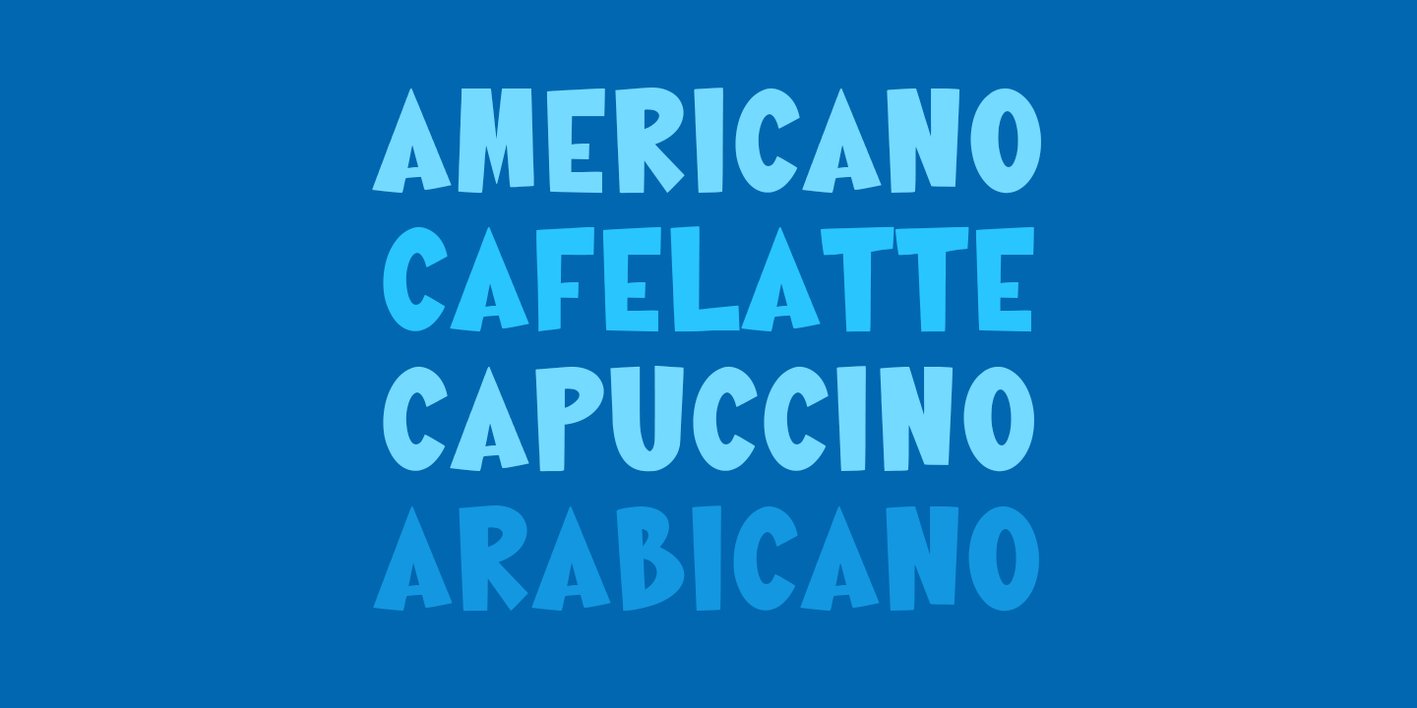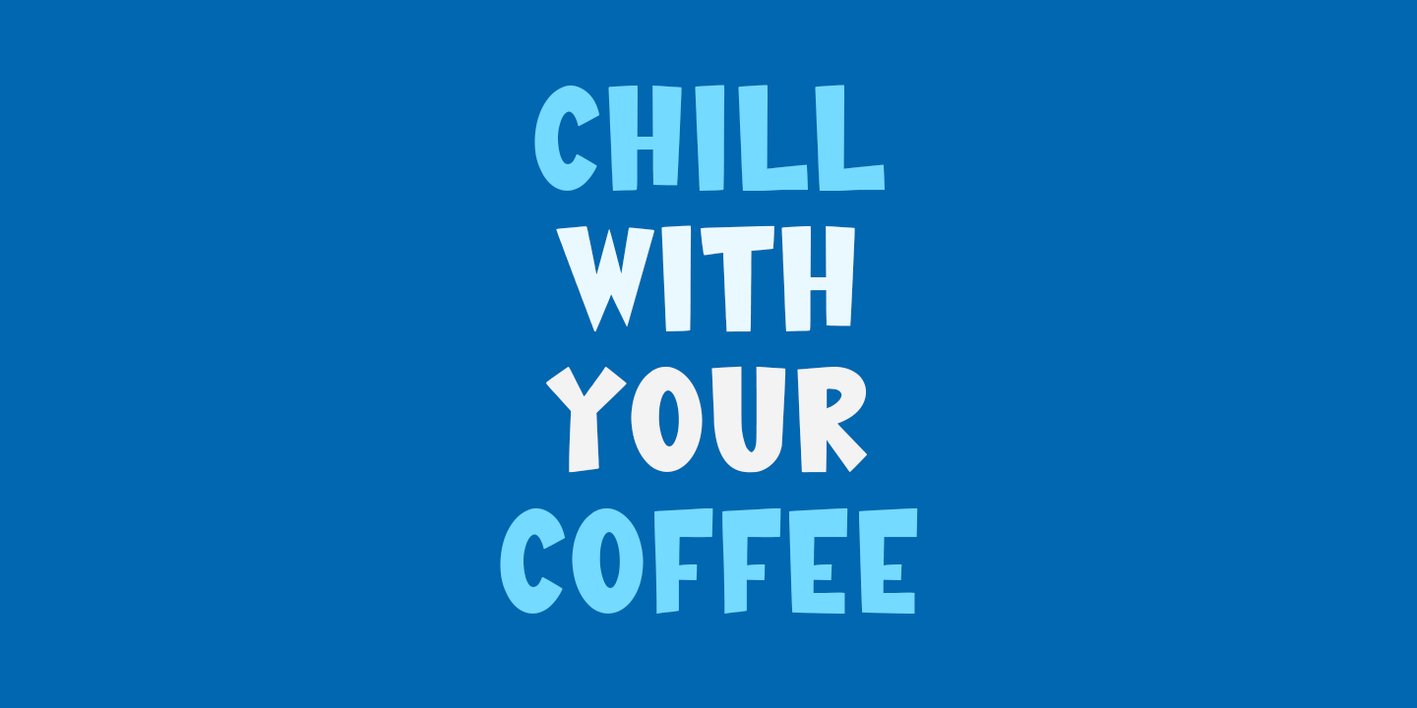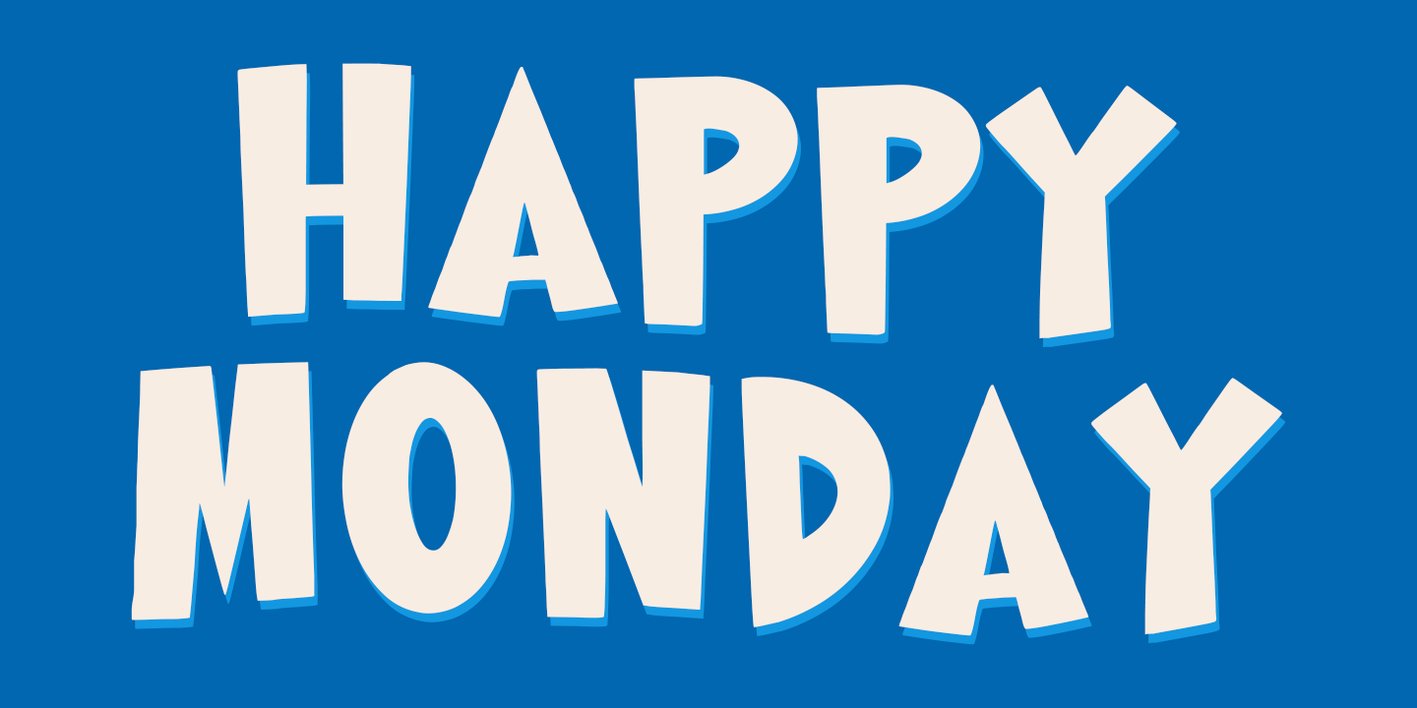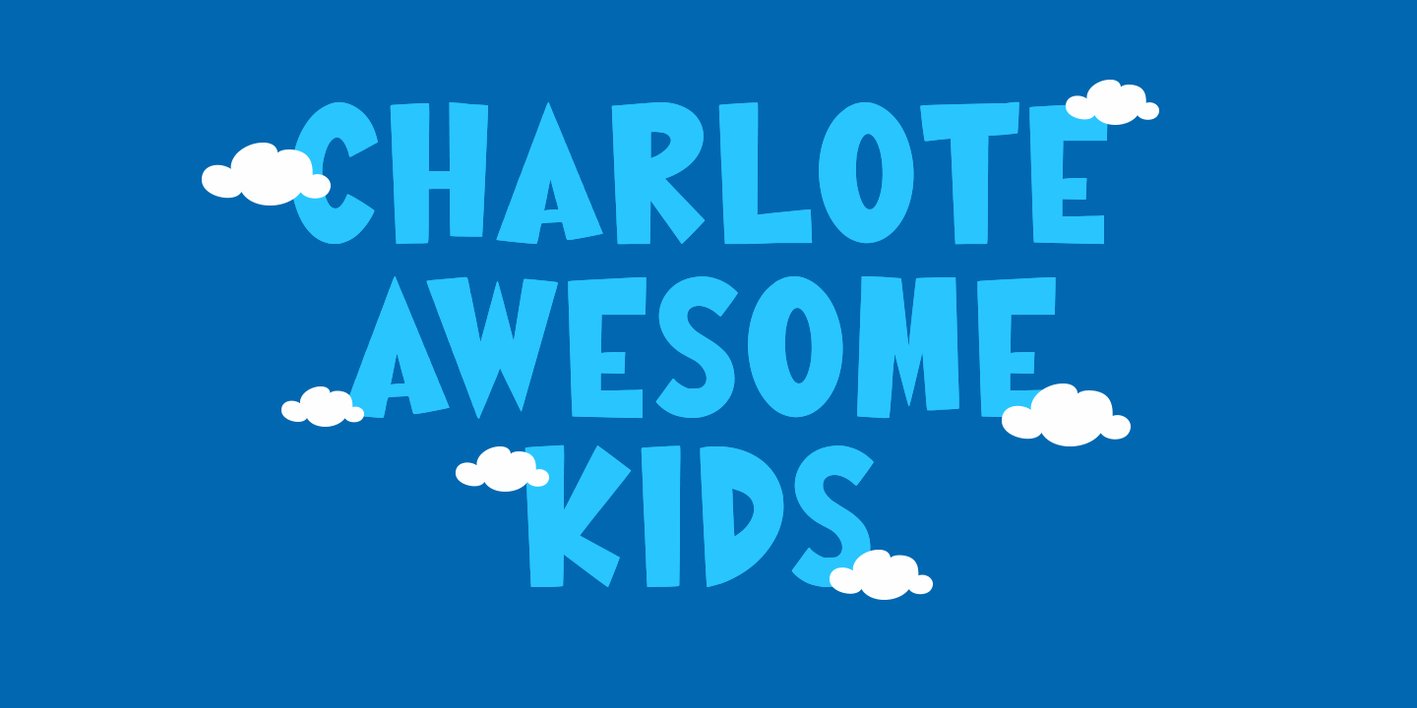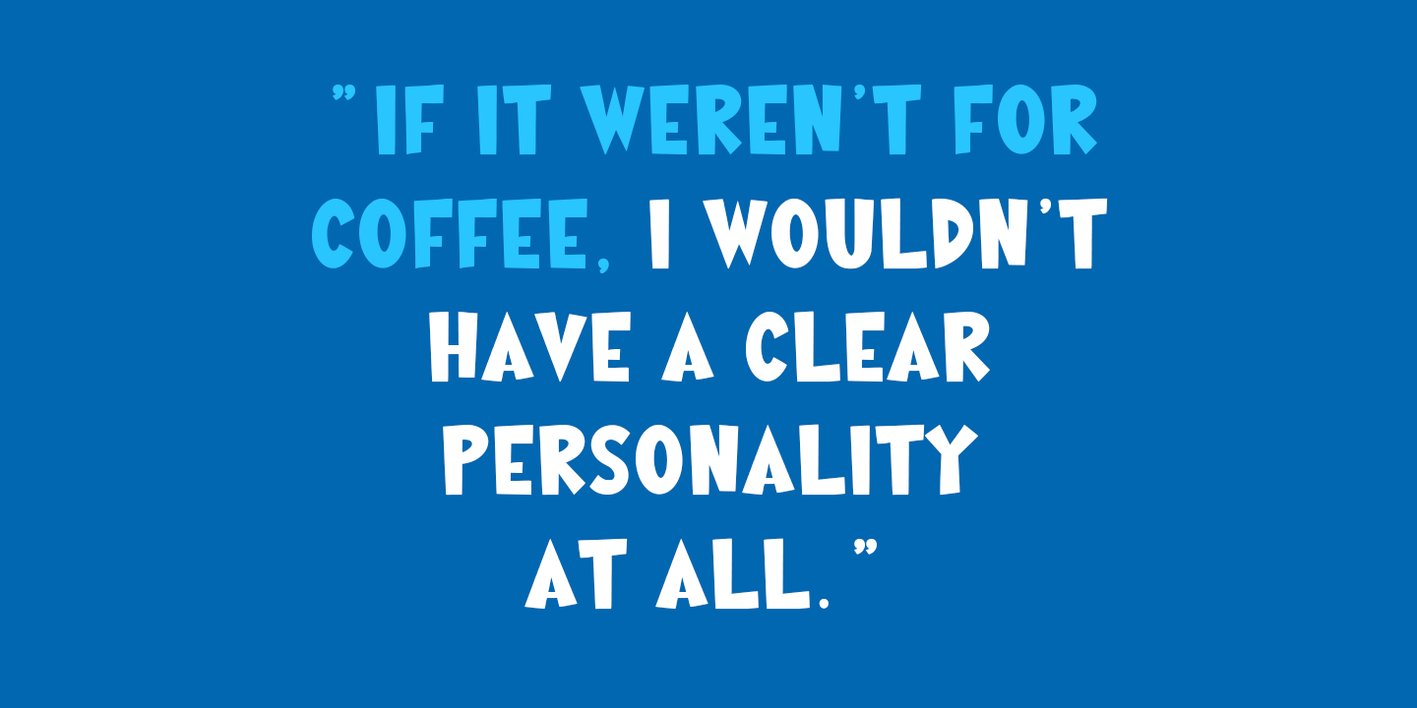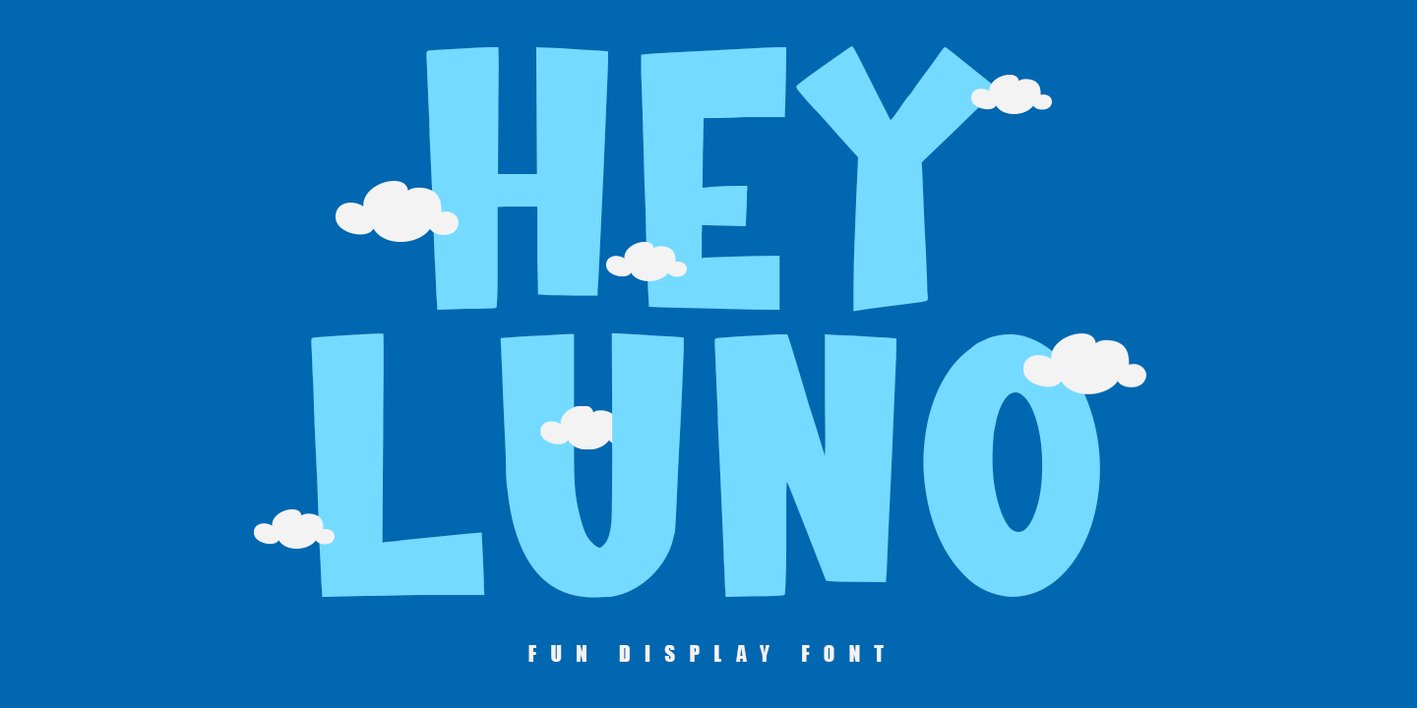
MC Hey Luno Font
Hey Luno fun cartoon display font, fun character with alternates to give you an extra creative work. Hey Luno fun cartoon display font support multilingual language.